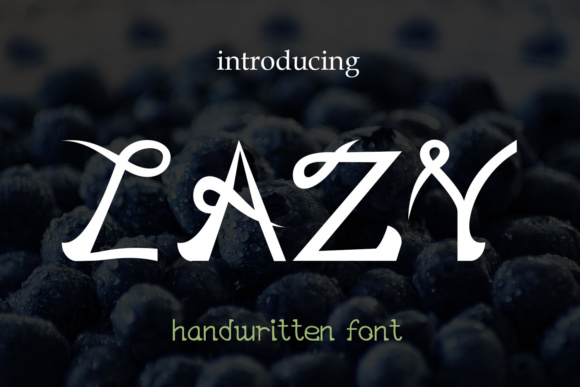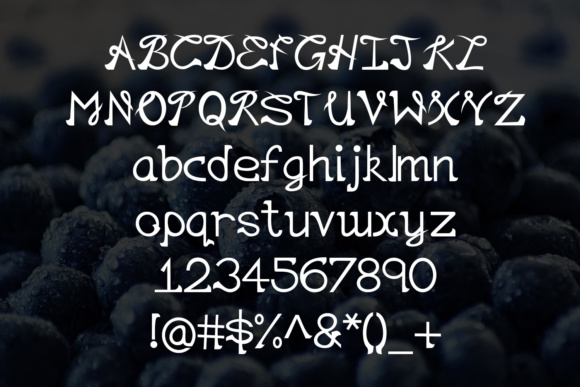
EP Lazy Font
About EP Lazy Font
This font is perfect for wedding cards, quotes, headings, blogs, logos, invitations and more! Font includes all caps, punctuation, and numbers.